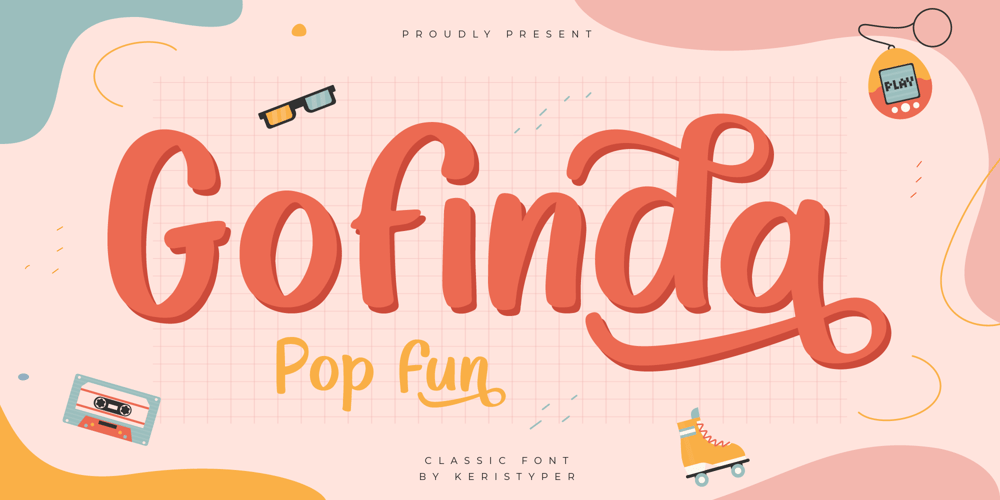
Gofinda Font Family was designed by Tezar Tantular and published by Keristyper Studio. Gofinda contains 1 styles and family package options. Govinda is a Fun display font, this font looks funny, cute, kids, cartoon, playful, catchy, and easy to use. This font is good for logo design, Social media, Movie Titles, Books Titles, short text even long text letters, and good for your secondary text font with sans or serif.Featured: Standard Uppercase & Lowercase Numeral & Punctuation Multilingual : ä ö ü Ä Ö Ü ß ¿ ¡ Alternate & Ligature PUA encoded We recommend programs that support the OpenType feature and the Glyphs panel such as Adobe applications or Corel Draw. so you can use all the variations of the glyphs. Hope you enjoy our fonts!